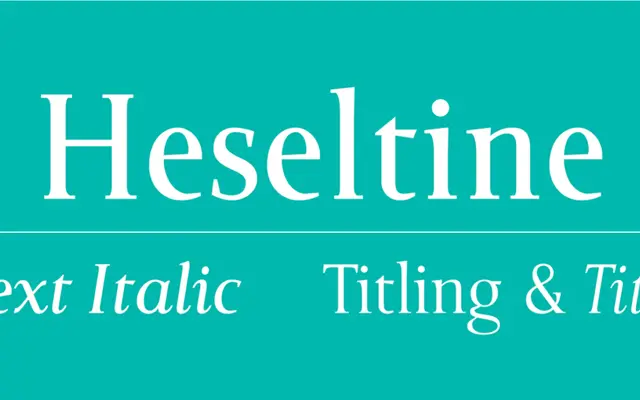
Heseltine
A traditional serif family designed as a personal commission for Lord Heseltine, later released for charity via BuyFontsSaveLives.
Designed by Paul and Pat Hickson for Haymarket Media Group as a 75th birthday gift to Lord Heseltine, the family covers Text and Titling weights with italics added for his 80th birthday. The extended character set includes a generous ligature complement and support for Latin plant names. All proceeds from sales go to Cancer Research UK and Macmillan Cancer Support.
Described as an elegant serif with Text and Titling weights, suggesting a traditional serif structure suited to both body and display settings.